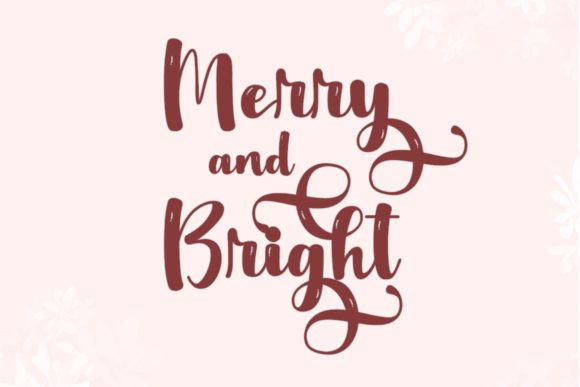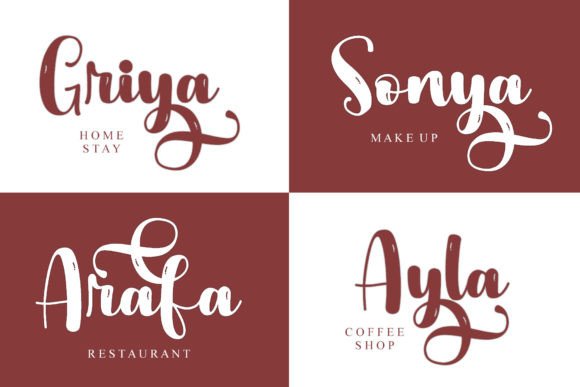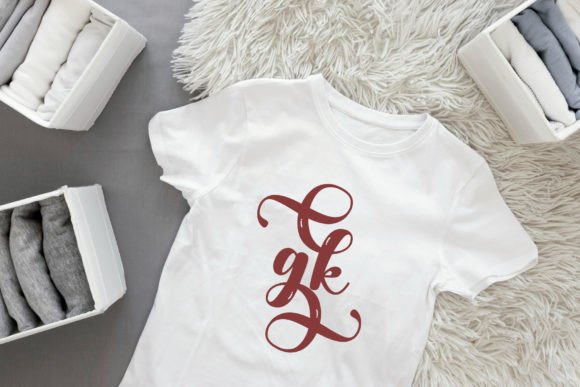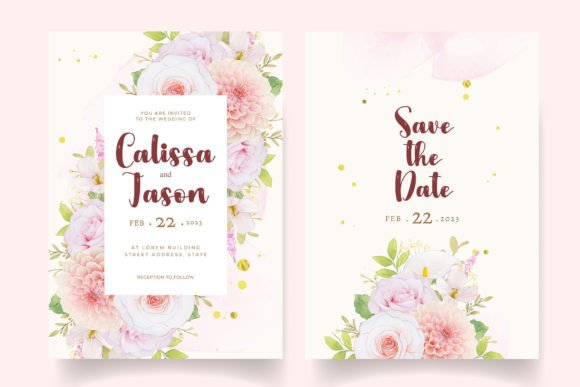
The Sweet Charm of Aryaka Font: A Designer’s Delight
I still remember the time I was working on a wedding invitation project, and my client asked for a font that was elegant, yet playful. I scoured the internet, trying out font after font, but nothing seemed quite right. That was until I stumbled upon Aryaka Font. Its flowing letters and sweet charm instantly won me over, and I’ve been hooked ever since.
An Honest Review of Aryaka Font
- ✨ Unique and elegant look: Aryaka Font has a distinctive, modern calligraphy style that adds a touch of sophistication to any design.
- ✅ Wide range of characters: With many lovely characters to choose from, you can create beautiful and varied designs.
- 💕 Perfect for creative projects: Whether you’re working on logos, greeting cards, or DIY projects, Aryaka Font is a versatile choice.
While Aryaka Font is a stunning choice, there are a few things to keep in mind:
- ⚠️ May not be suitable for body text: Due to its elegant, cursive nature, Aryaka Font may not be the best choice for large blocks of text.
- 🤔 Some characters may require adjustment: Depending on the design, you may need to adjust the spacing or kerning of certain characters to get the perfect look.
The Story Behind Aryaka Font
Aryaka Font was created with the intention of bringing a touch of modern elegance to the world of calligraphy. Its designer drew inspiration from traditional calligraphy techniques, combined with a modern twist to create a unique and versatile font.
| Font Name | Aryaka Font |
| Author | Letterafa Studio |
| What type of projects is Aryaka Font best suited for? | Aryaka Font is perfect for logos, greeting cards, package design, brand identity, craft design, DIY projects, book titles, wedding invitations, and more. |
| Is Aryaka Font available in different weights or styles? | Currently, Aryaka Font is available in a single weight. However, its range of characters and OpenType features make it versatile enough for various design applications. |